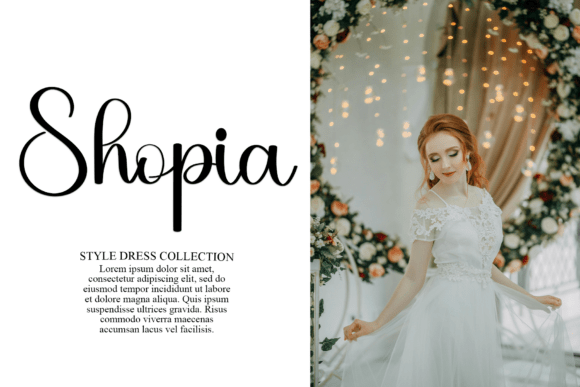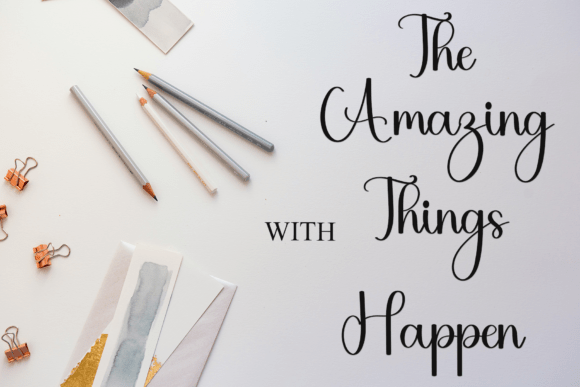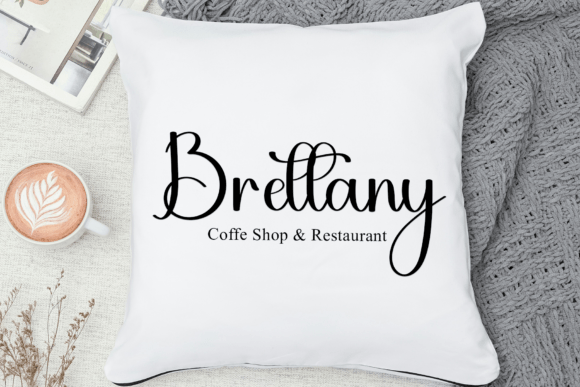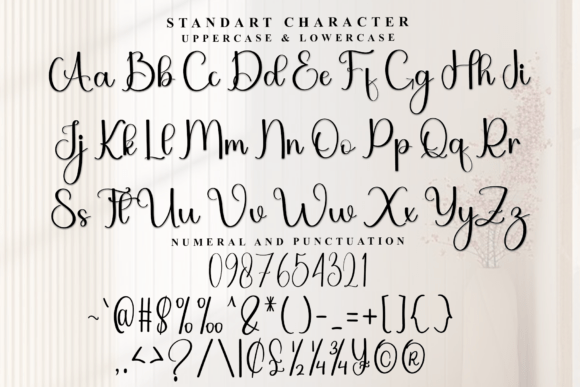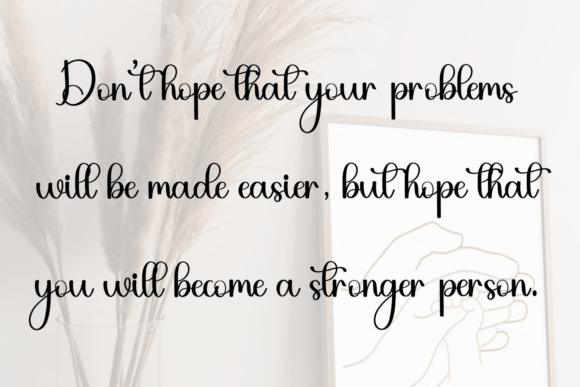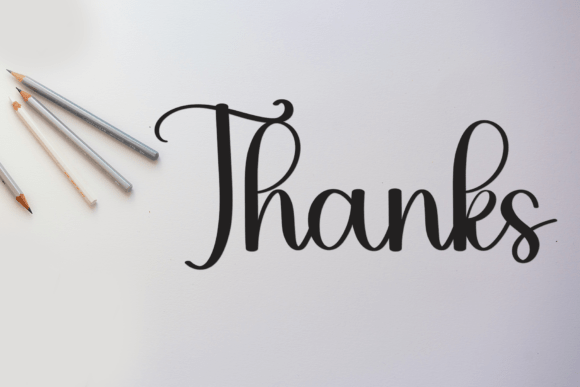
Introducing Anniversary Font: The Timeless Handwritten Font for Stunning Designs
Are you a designer or crafter looking for the perfect font to add a touch of elegance and sophistication to your projects? Look no further than Anniversary Font, a lovely and timeless handwritten font that is sure to make your designs come alive. In this article, we’ll take a closer look at the features and benefits of Anniversary Font, and explore how it can be used to create eye-catching logos, branding, and quotes.
A Unique and Beautiful Touch
One of the standout features of Anniversary Font is its unique and beautiful touch. Every letter has been carefully crafted to have its own distinct character, giving your designs a personal and handmade feel. The font’s handwritten style is both elegant and approachable, making it perfect for a wide range of design projects, from logos and branding to quotes and social media graphics.
Anniversary Font is an excellent choice for creating logos and branding materials. Its unique and beautiful touch will help your brand stand out from the crowd, and its elegant style will give your brand a sophisticated and professional look. Whether you’re designing a logo for a new business or rebranding an existing one, Anniversary Font is a great option to consider.
Why Choose Anniversary Font for Your Logo?
- Unique and memorable: Anniversary Font’s unique and beautiful touch will help your logo stand out and be remembered.
- Elegant and sophisticated: The font’s elegant style will give your brand a professional and sophisticated look.
- Versatile: Anniversary Font can be used in a variety of design projects, from logos and branding to quotes and social media graphics.
Creating Eye-Catching Quotes and Graphics
Anniversary Font is also perfect for creating eye-catching quotes and graphics. Its elegant style and unique touch will make your quotes and graphics stand out on social media, and its versatility means it can be used in a variety of design projects. Whether you’re designing a quote for a client’s social media page or creating a graphic for your own blog or website, Anniversary Font is a great choice.
Tips for Using Anniversary Font
- Experiment with different colors: Anniversary Font looks great in a variety of colors, so don’t be afraid to experiment and find the perfect color for your design.
- Use it with other design elements: Anniversary Font can be used with other design elements, such as images and graphics, to create a stunning design.
- Play with different sizes: Anniversary Font can be used in a variety of sizes, from large headings to smaller body text.
In conclusion, Anniversary Font is a timeless handwritten font that is perfect for designers and crafters looking to add a touch of elegance and sophistication to their projects. Its unique and beautiful touch, elegant style, and versatility make it a great choice for a wide range of design projects, from logos and branding to quotes and social media graphics. So why not give Anniversary Font a try and see how it can help take your designs to the next level?